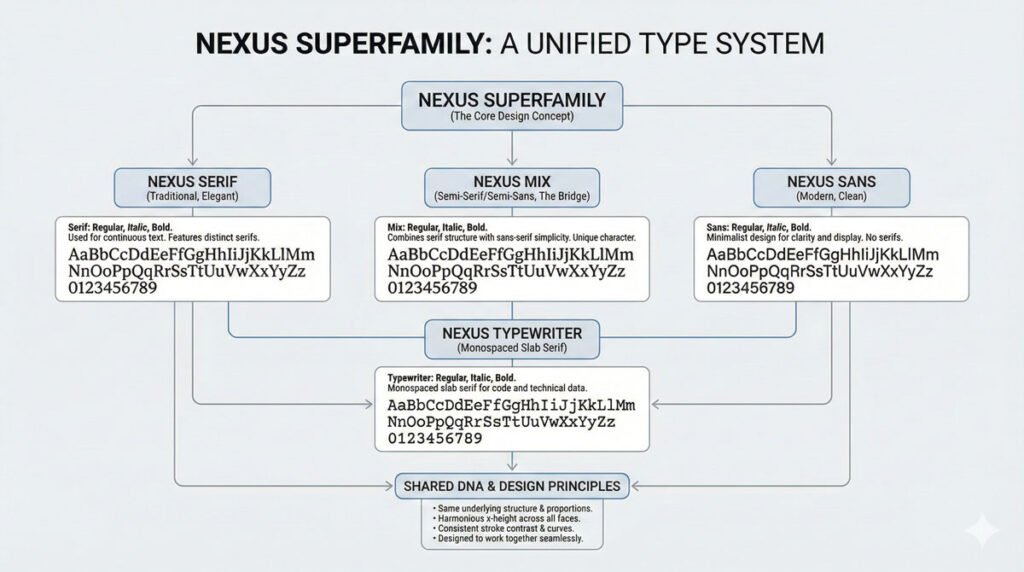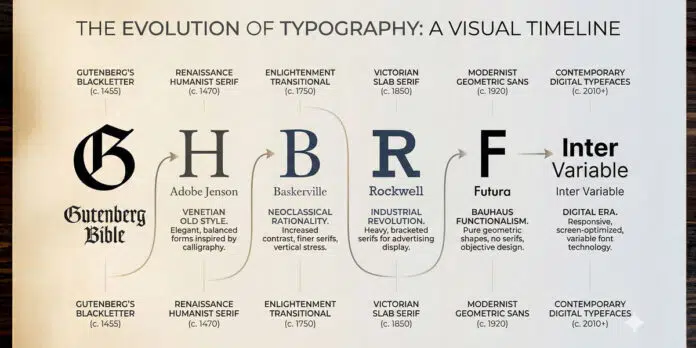
Learn typeface categories: Humanist, Old Style, Transitional, Modern serifs, plus Slab, Grotesque, Geometric and Humanist sans serifs. Master selection and pairing.
The Typeface vs. Font Distinction
The terms “typeface” and “font” are frequently used interchangeably in modern practice, though technically they have distinct meanings. A typeface is the consistent design or distinct visual form of a type family.
It’s a cohesive system of related shapes created by a type designer, where characters including letterforms, numerals, and punctuation share formal attributes.
Historically, a font was a complete character set of a typeface in one point size and style—for example, 12-point Centaur roman.
The term can also describe family members comprising different weights and styles: light, regular, bold, italic. In digital practice, a font refers to a computer file that makes a typeface available for use and production.
Understanding this distinction helps you speak more precisely about typography and respect the work of type designers who create these systems.
Why Typeface Selection Matters
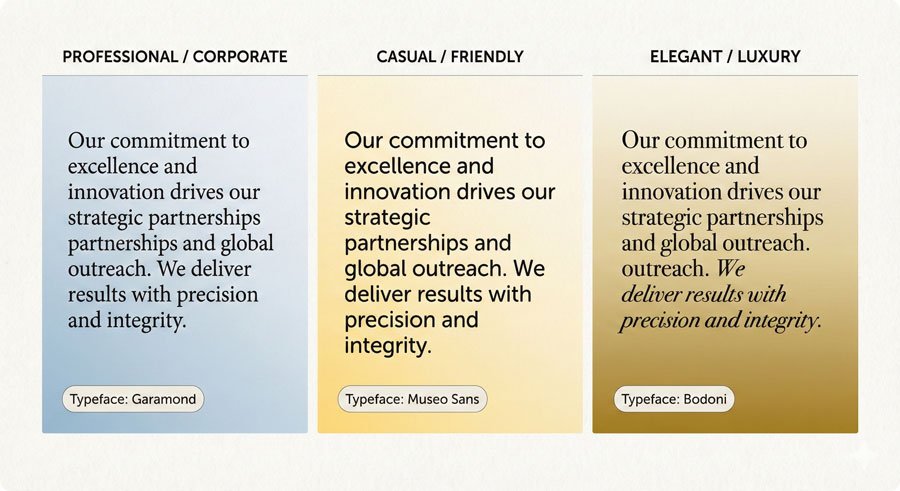
Typefaces influence communication through both appearance and legibility. Aesthetics provide first impressions and express personalities—friendly, professional, sweet and youthful, masculine, utilitarian. Connotation (implied meaning) inherent in typefaces plays a significant role in how your audience perceives your message.
Legibility refers to the recognition of single characters and their relationships when set side by side. Type designers carefully construct characters and pay special attention to space—particularly counters (enclosed white space in characters) and sidebearings (the built-in space on the left and right of characters). Character shape plus white space aid letterform recognition. Legibility relies on the invisible presence of space.
Apt typefaces directly engage viewers and send convincing messages. When you choose a typeface that aligns with your content, medium, and audience, you create work that feels intentional and compelling.
The Major Typeface Categories
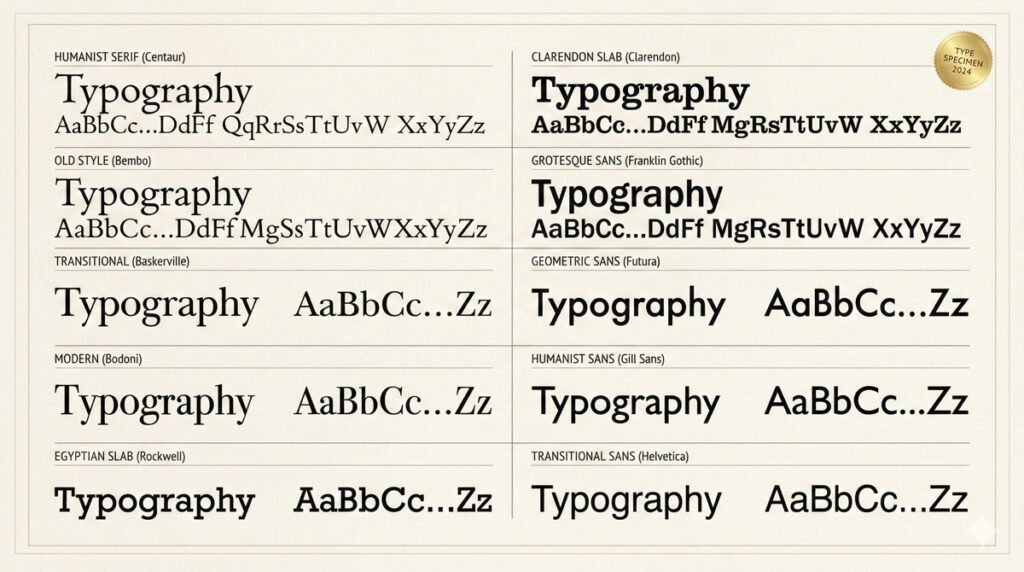
Serif Typefaces
Serif typefaces are organized into four historical and formal categories:
- Humanist Serif – The original roman typefaces, appearing in the fifteenth century. Inspired by Italian handwriting called “lettera antica,” they feature low thick-to-thin stroke contrast, bracketed serifs, angled crossbars on lowercase ‘e’, and oblique stress. Examples include Centaur and Vendetta. These typefaces feel elegant and historical.
- Old Style Serif – More refined than Humanist serifs with smoother, rounder forms. Appearing in the fifteenth and sixteenth centuries, they show medium thick-to-thin stroke contrast and horizontal crossbars on lowercase ‘e’. Examples include Bembo and Galliard. These typefaces balance elegance with readability.
- Transitional Serif – Appearing in the eighteenth century, inspired by engraving techniques. They feature medium to high thick-to-thin stroke contrast, sharper bracketed serifs, and taller x-heights. Baskerville is the archetypal example. These typefaces represent a bridge between historical and modern forms.
- Modern Serif – Also called Didone serifs, these appear in the eighteenth century with very high thick-to-thin stroke contrast, vertical stress, and hairline unbracketed serifs. Bodoni and Walbaum are classic examples. These typefaces feel formal and dramatic.
Slab Serif Typefaces:
- Egyptian – Appearing in the nineteenth century, featuring very low or uniform stroke contrast with heavy, square unbracketed serifs. Rockwell is the archetypal example. Originally designed for advertising, contemporary slabs are more versatile.
- Clarendon – Also appearing in the nineteenth century, featuring bracketed serifs and low thick-to-thin stroke contrast with distinctive ball terminals. Clarendons appear more refined than Egyptians.
Sans Serif Typefaces
- Grotesque – The first commercially widespread sans serifs, appearing in the nineteenth century. They show slight thick-to-thin stroke contrast with curved strokes ending at angles. Akzidenz-Grotesk is archetypal. These feel utilitarian and straightforward.
- Geometric – Appearing in the twentieth century, based on geometric shapes (circles, squares, triangles). They feature uniform stroke contrast and vertical stress. Futura is the prime example. These feel modern and rational.
- Humanist Sans – Taking inspiration from Humanist serifs with subtle thick-to-thin contrast and calligraphic influence. Gill Sans is archetypal. These feel approachable and refined.
Transitional Sans – From the mid-twentieth century onward, refreshed Grotesques with uniform stroke contrast and vertical stress. Helvetica and Univers are classic examples. These feel neutral and universal.
Legibility vs. Illegibility: When to Break the Rules